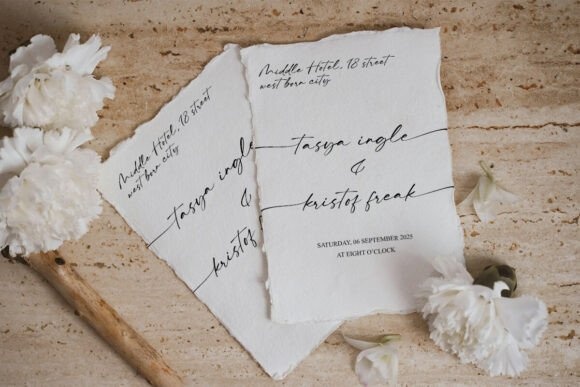
Mellira Font
Mellira Font is a clean, handwritten script font with a touch of luxury, carefully crafted to bring your designs to life. Quick to use and inspired by the organic aesthetics of natural handwriting, this typeface adds elegance and personality to any project.
Designed with a creative and elegant flair, Mellira features stunning swashes that elevate the visual appeal of your text. It’s perfect for wedding invitations, branding projects, inspirational quotes, logos, greeting cards, and more.
Mellira Handwritten Script Font